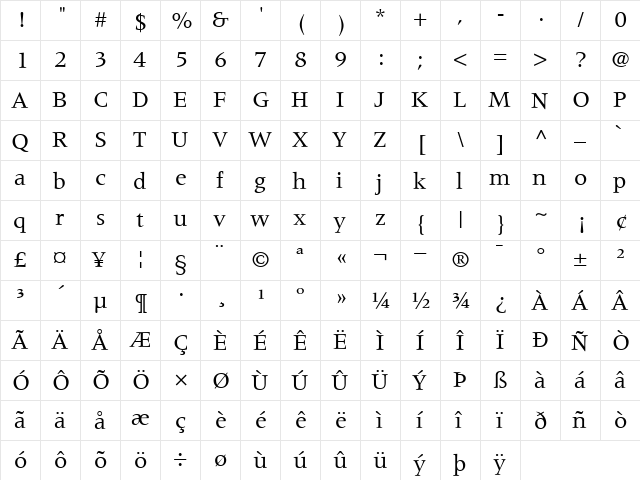
MeridienRoman Roman
Design Context for MeridienRoman Typeface
MeridienRoman offers clean, dependable letterforms without strong stylistic allegiance, making it a practical choice for designers who need flexibility.